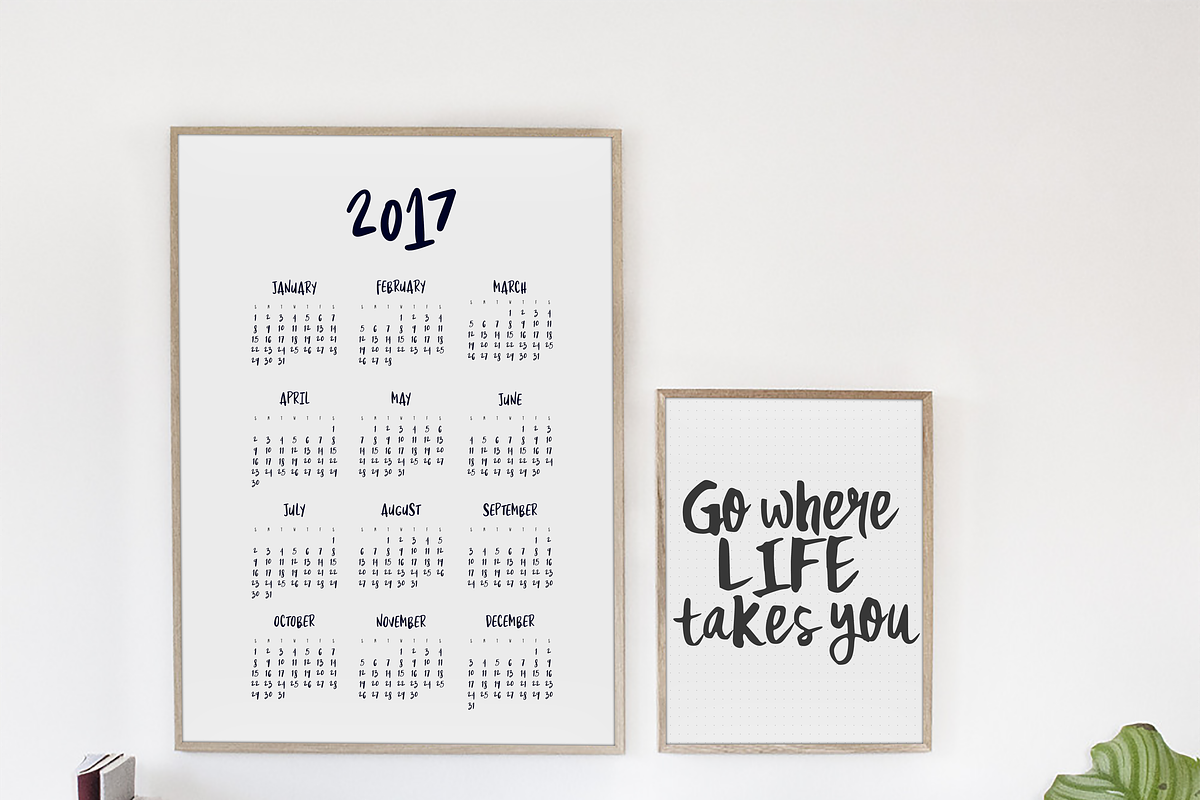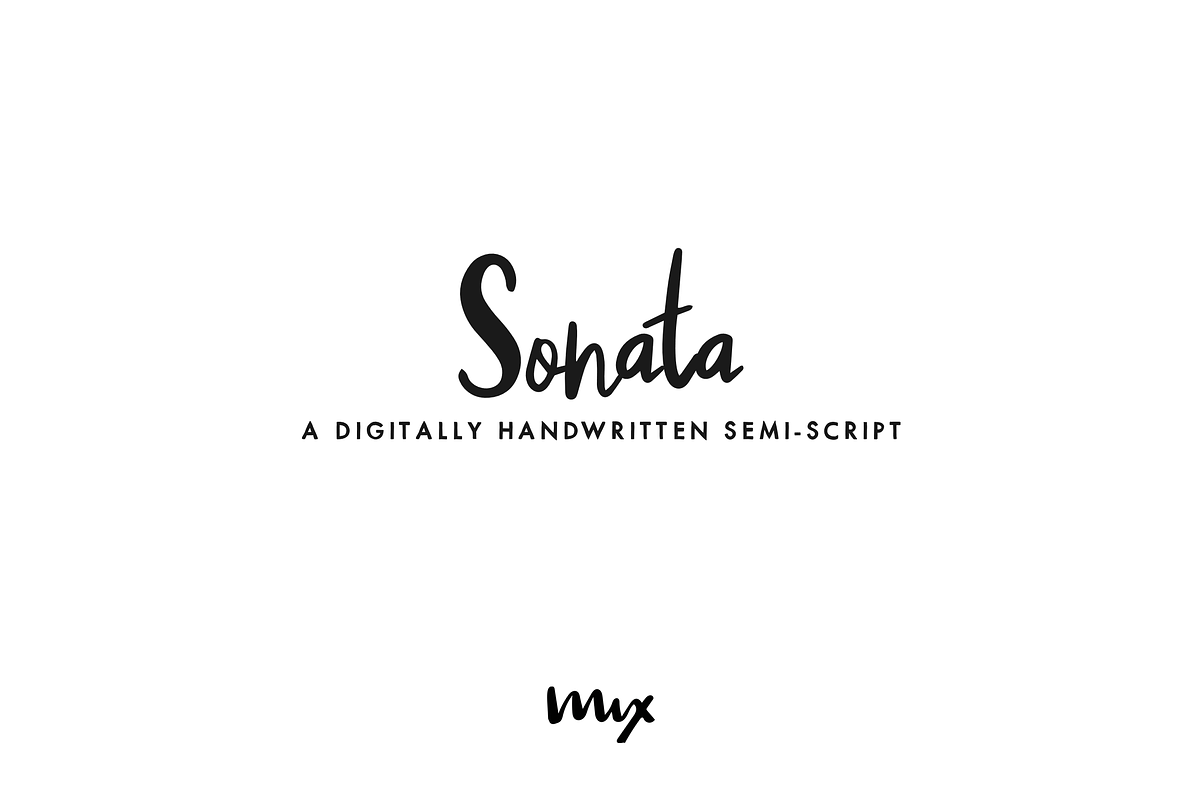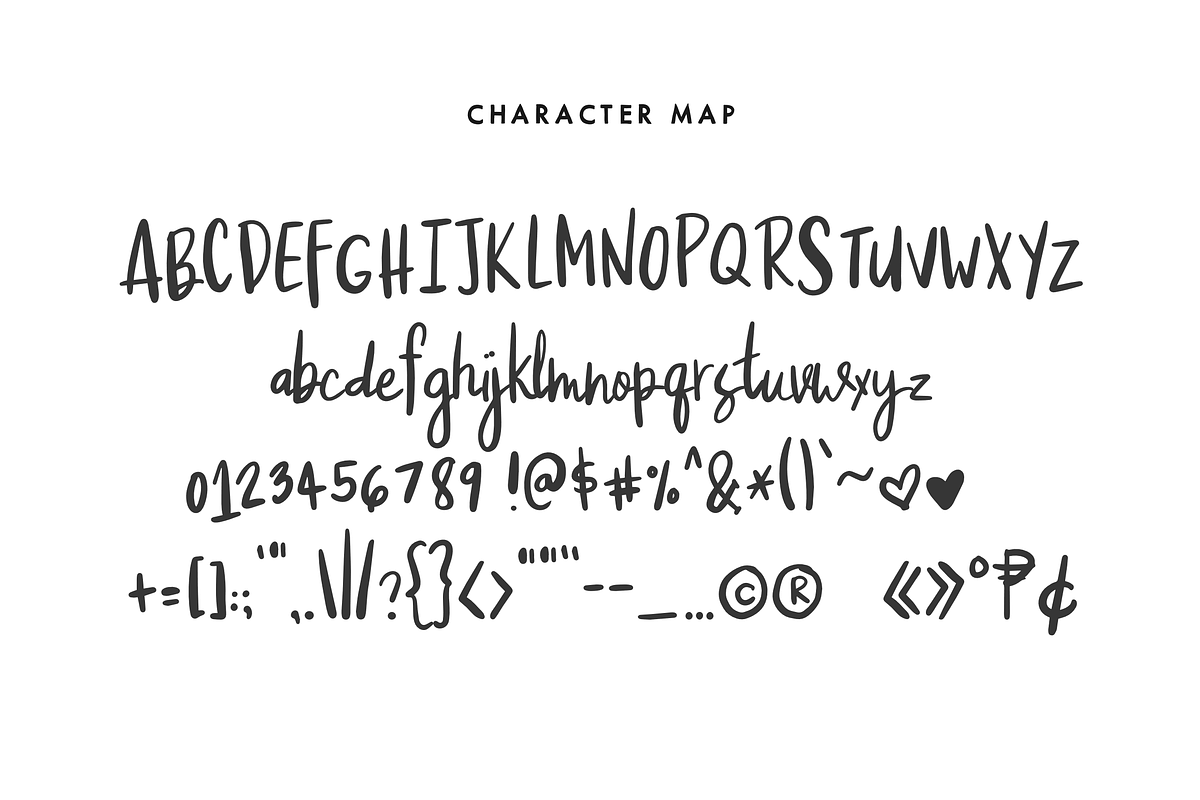
Sonata — A Handwritten Semi-script
Sonata — A Handwritten Semi-script by Mix Fonts is a font selected for branding, posters, packaging, typography.
Sonata — A Handwritten Semi-script by Mix Fonts fits naturally into Branding, posters, packaging, typography.